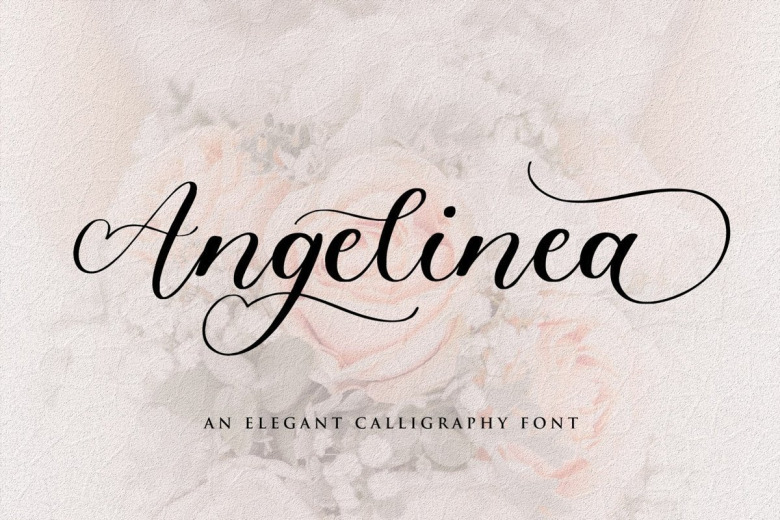
Angelinea Elegant Font
Angelinea Elegant Calligraphy Font is a lovely script font, with a delicate flow. It has beautiful and well balanced characters and as a result, it matches a wide pool of designs. This font is PUA encoded which means you can access all of the glyphs and swashes with ease!